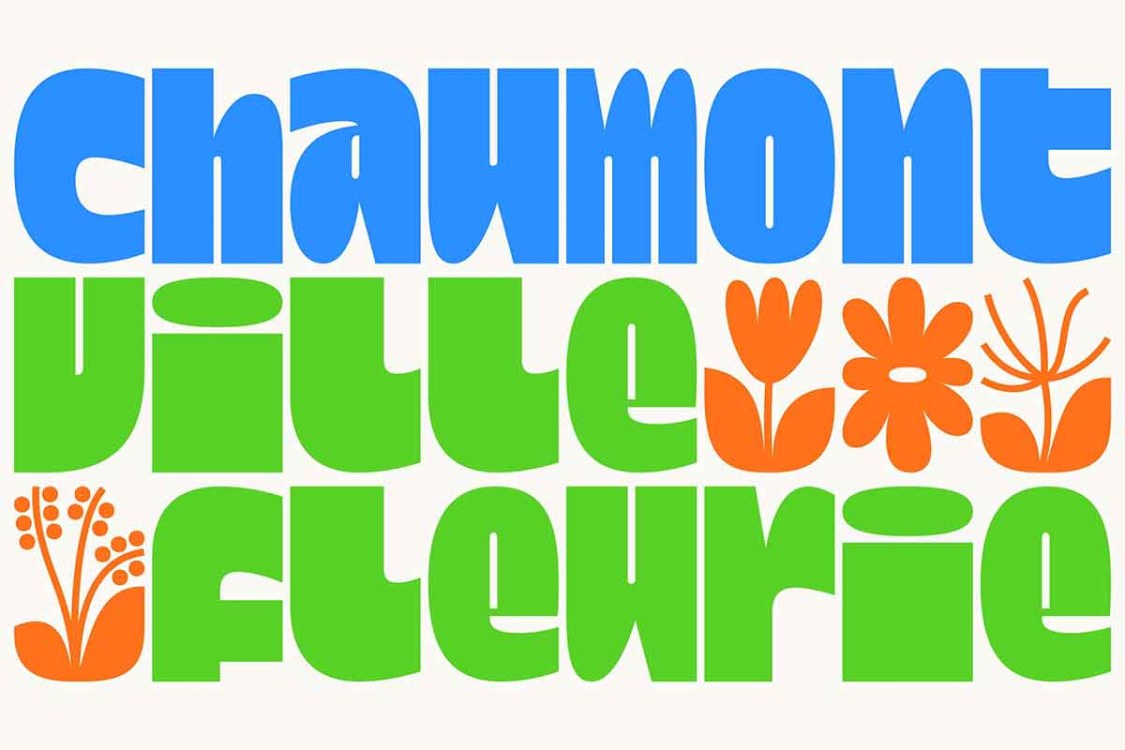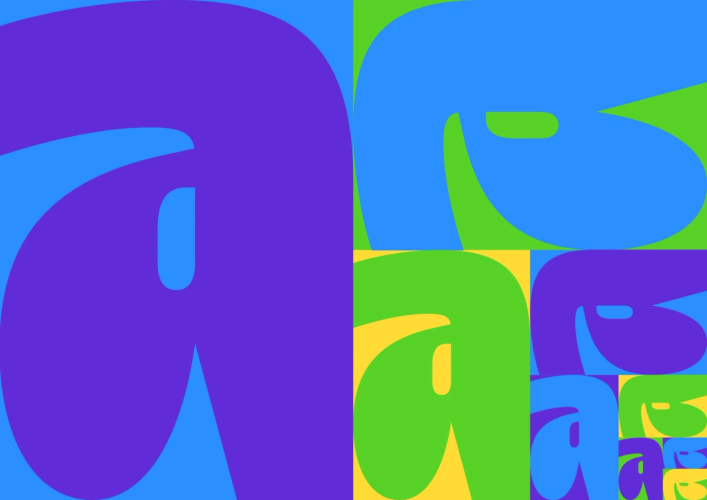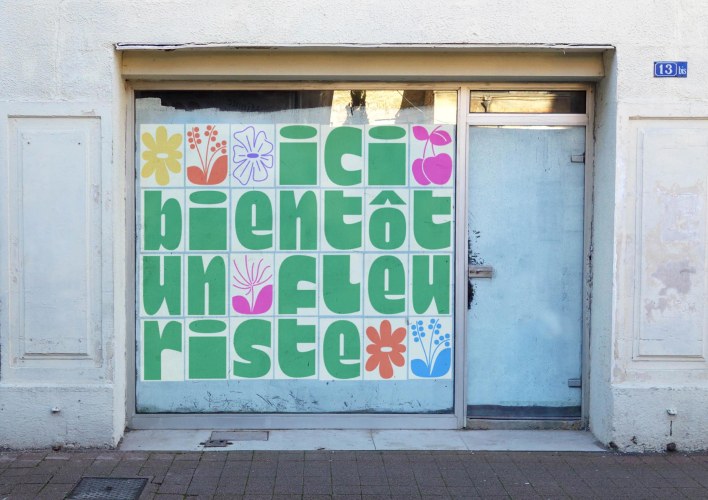
Dina Chaumont Font Family
In 2020, baldinger•vu-huu and the town of Chaumont began collaborating to create a visual and graphic language for Chaumont and its inhabitants.
Chaumont is a medium-sized French town with a preserved and pleasant living environment in the heart of nature, combining modernity and authenticity. Since 1990, Chaumont has been organising the Poster Festival, which became the International Graphic Design Biennal in 2017. This event, together with Le Signe (Centre National du Graphisme), has given Chaumont the City of Graphic Design position: a key element to be reflected in the city’s visual identity and typography. This visual identity must also reflect the dynamism of Chaumont and not only address a public of designers.
Dina Chaumont Font Family is a Font Family font that brings a professional and versatile look to your projects. In 2020, baldinger•vu-huu and the town of Chaumont began collaborating to create a visual and graphic language for Chaumont and its inhabitants.